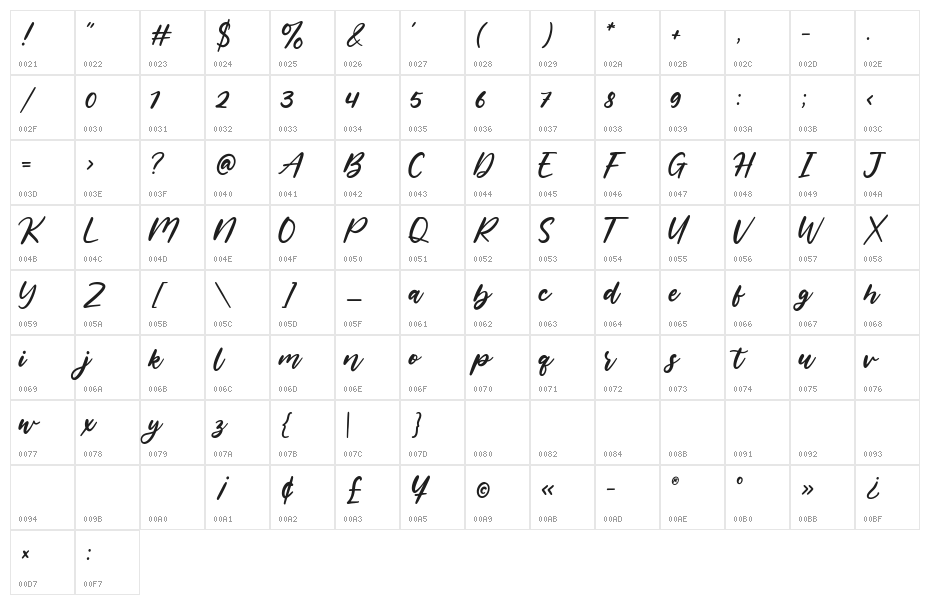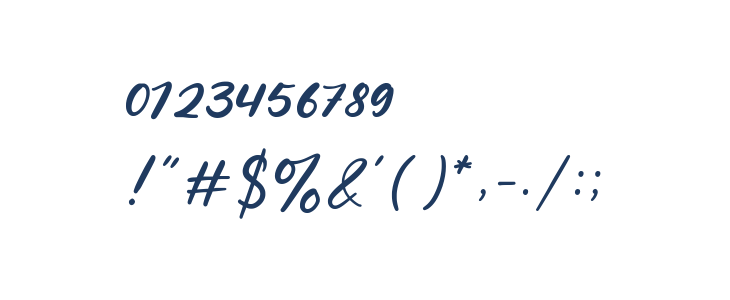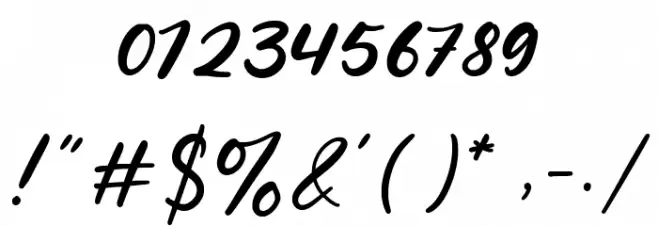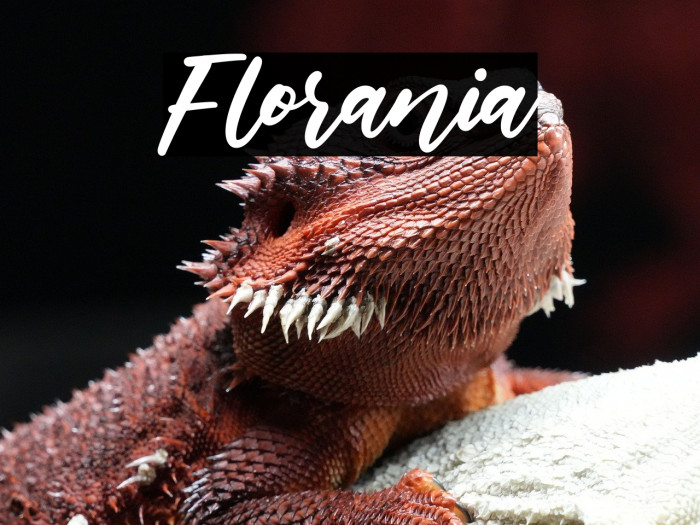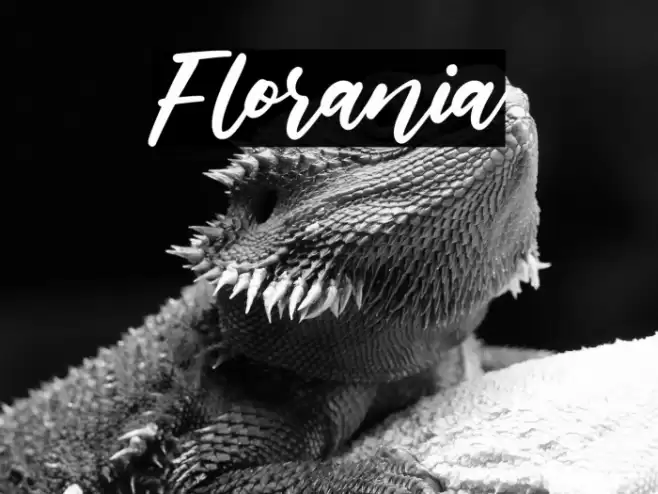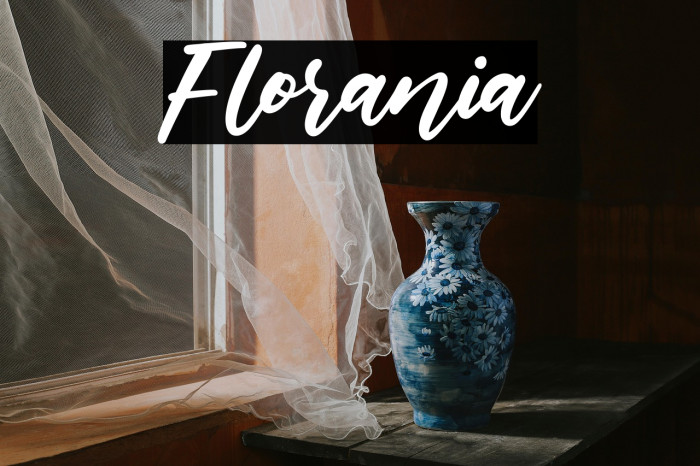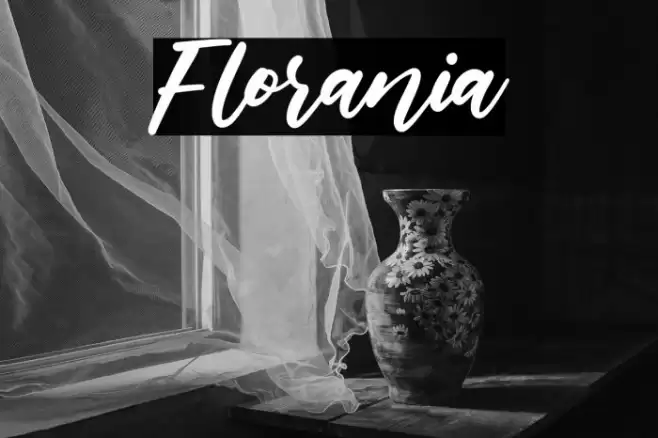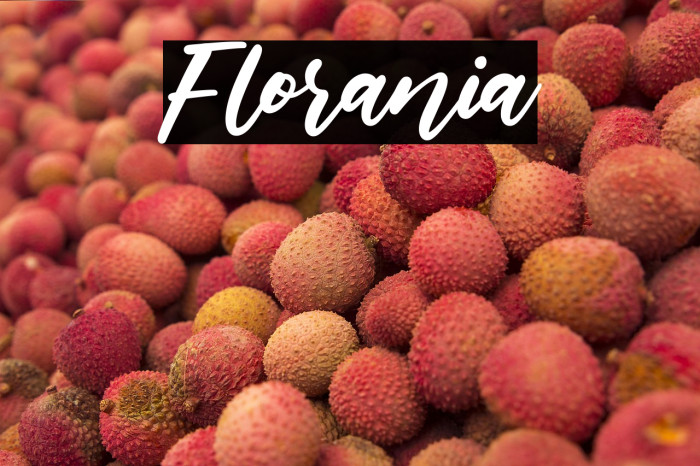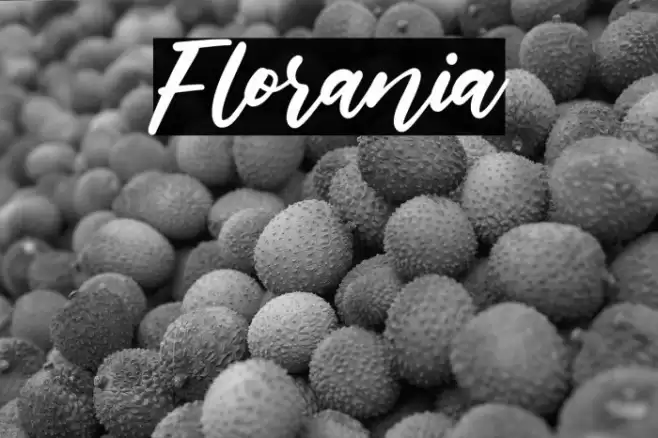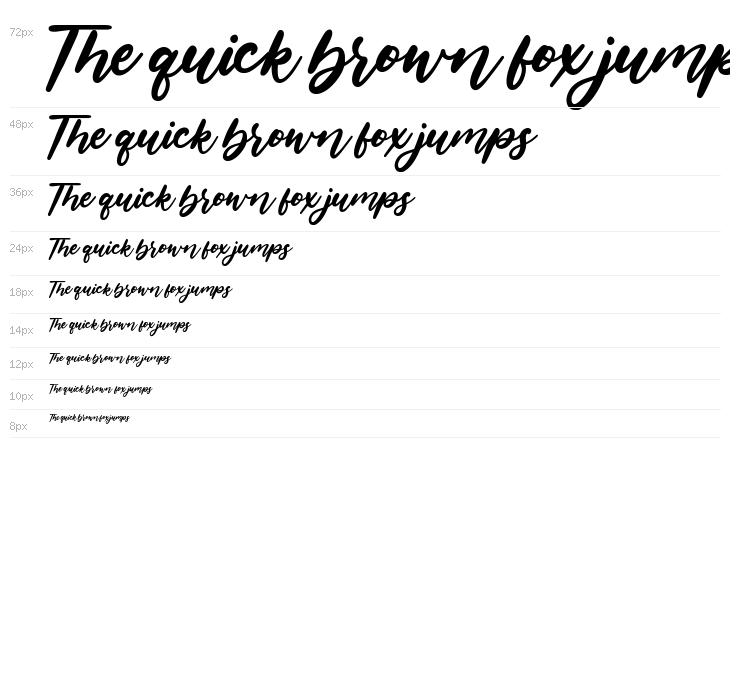
Florania Font
Florania Description
This font features a flowing, cursive style that exudes elegance and sophistication. The letters are connected in a smooth, continuous manner, giving it a handwritten appearance. The uppercase letters are slightly taller and more pronounced, while the lowercase letters maintain a consistent baseline, enhancing readability. The numerals are distinct and easy to distinguish, complementing the overall aesthetic. Special characters are well-integrated, maintaining the font's cohesive look. This font is ideal for projects that require a personal touch, such as invitations, greeting cards, or branding materials.